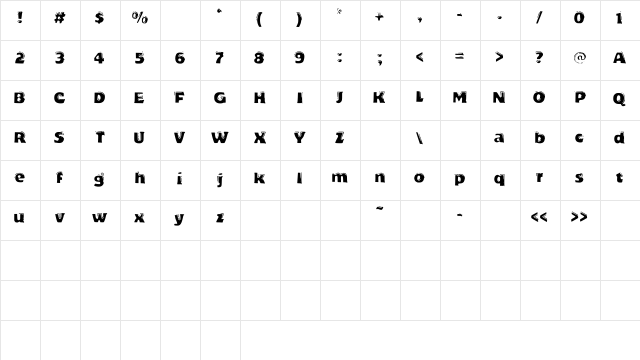
DeLeo Medium
Design Context for DeLeo Typeface
DeLeo is a composed and adaptable typeface that performs quietly and consistently across a wide range of design contexts.